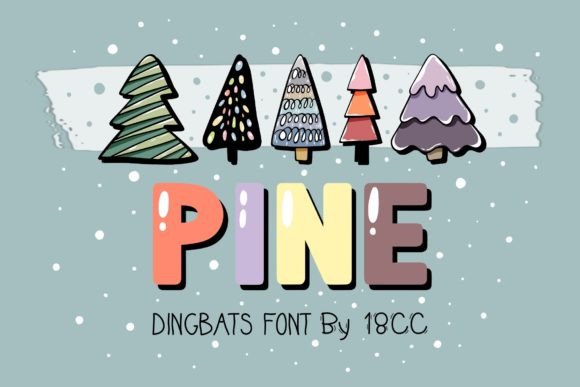
Introducing Pine Font, the ultimate font for backdrop design that will add a touch of magic to your creations. Created by 18CC FONTs, this cute dingbat font is specially designed for the Xmas season, making it the perfect addition to your holiday-themed projects.
With its wide range of applications, Pine Font is a versatile choice for all your craft projects and designs. Whether you're working on planners, diaries, activity books, or any other creative endeavor, this font will take your ideas to the next level.
Get ready to be captivated by the unique charm of Pine Font. Its intricate doodle designs are sure to catch the eye and evoke a sense of wonder in anyone who sees them. Let your imagination run wild as you explore the endless possibilities that this font offers.
Infuse your projects with the spirit of the holiday season as Pine Font brings a festive vibe to your designs. Each character is carefully crafted to add a touch of whimsy and joy, making it the perfect choice for Christmas-themed creations.
Stand out from the crowd with Pine Font. Its captivating and eye-catching appeal will make your work shine, drawing attention and admiration from all who see it. Add a dash of creativity and uniqueness to your projects with this font, and watch as they come to life in ways you never thought possible.